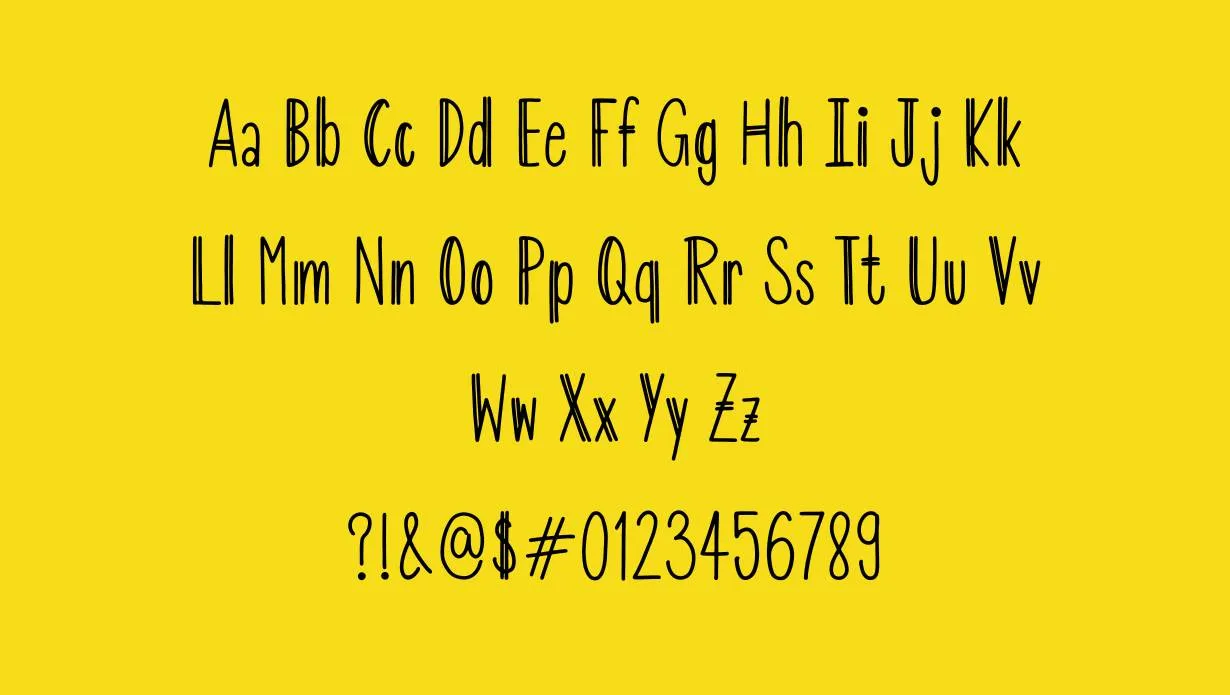
Lemonade Font is a fresh and playful typeface known for its cheerful and whimsical appearance. Its rounded curves and friendly design make it a great choice for children’s books, party invitations, and fun posters.